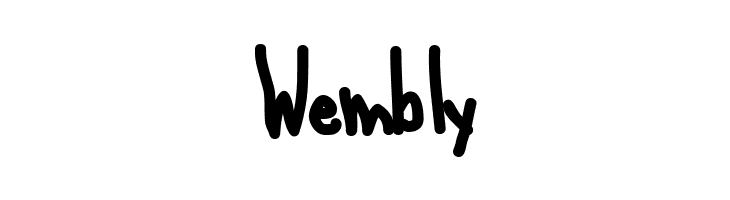
Christmas Light Font
- Font: Christmas Light
A playful, hand-drawn font with bold, rounded strokes and a whimsical charm.
( Fonts by Daniel Gauthier )